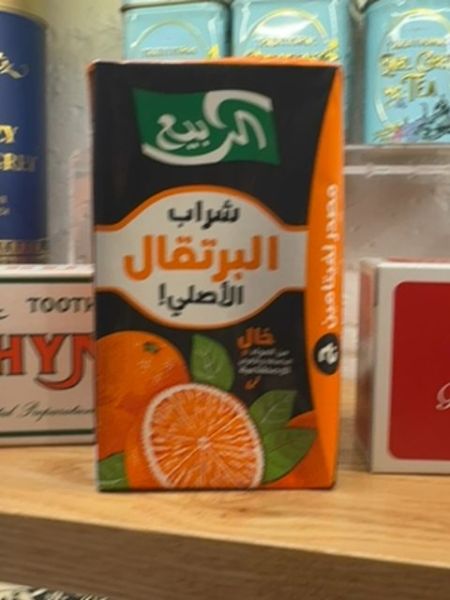
Al-Nakhla Orange Juice
A traditional orange juice drink known for its authentic flavor.
Egypt
The typography uses bold, sans-serif Arabic fonts that convey clarity and modernity. The use of contrasting colors such as white text on a black background makes the text stand out, enhancing readability.
The packaging features a vibrant orange color, indicative of the orange flavor, contrasted by bold black sections. The illustration of fresh oranges adds a natural and appealing touch.
- Popular for its authentic taste.
- Uses natural ingredients.
- Widely consumed in the Middle East.